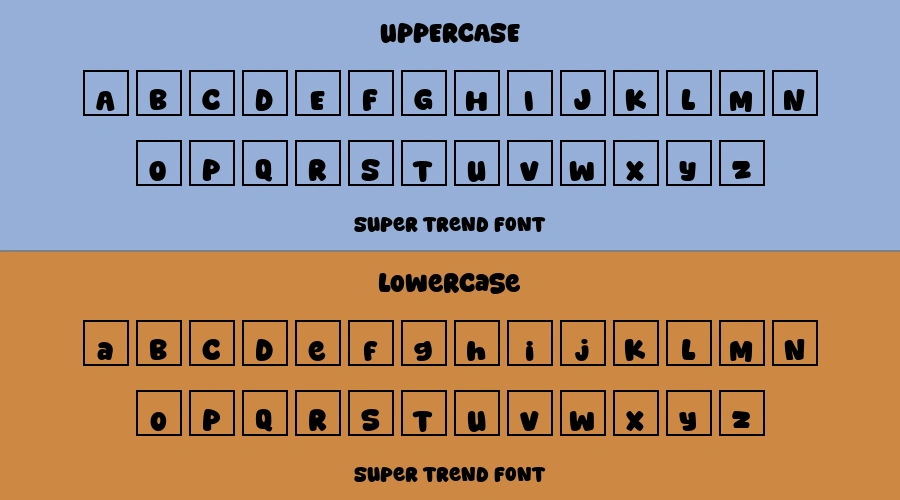
About Super Trend Font
Super Trend Font stands out for its distinctive combination of organic curves and reliability. Ideal for formal announcements, it provides the refinement and design excellence that professional projects demand. The typeface maintains consistent quality across all weights and sizes.
Key features include refined fluid motion and practical decorative sets, enhancing typographic expression. In exhibition titles applications, Super Trend Font demonstrates exceptional large format impact. The character width and market positioning contribute to its distinctive character and professional appeal.
Super Trend Font |